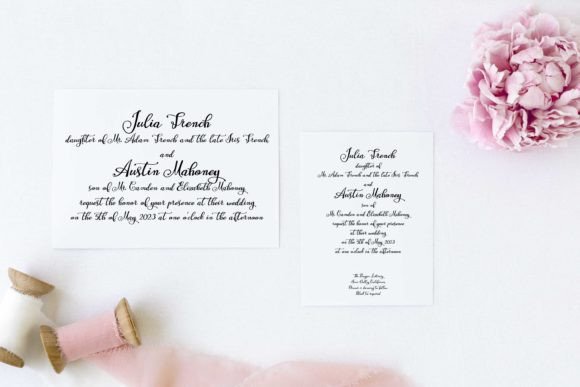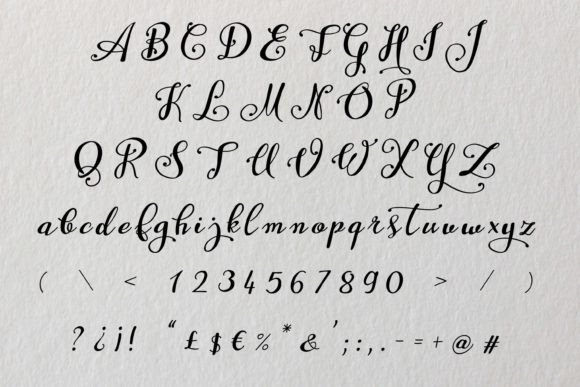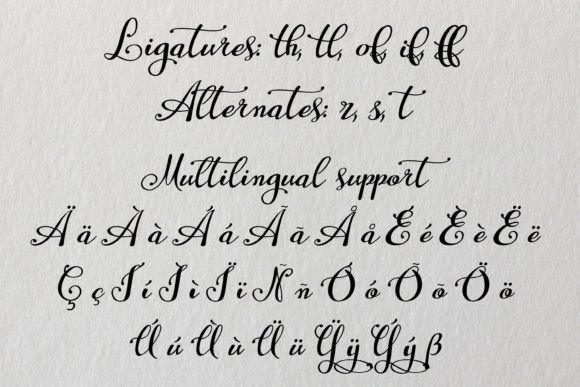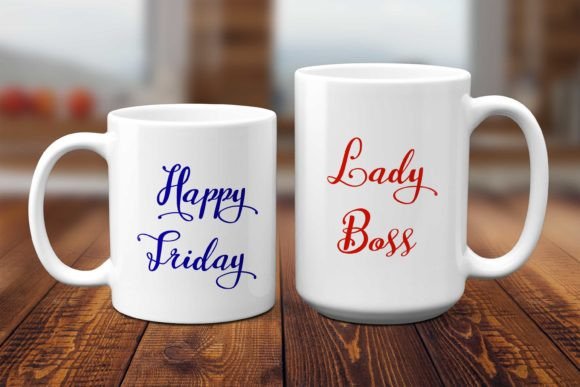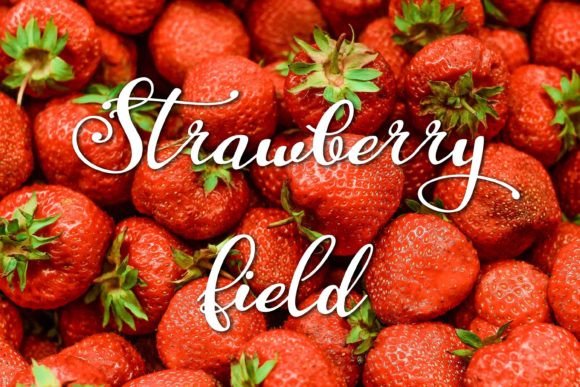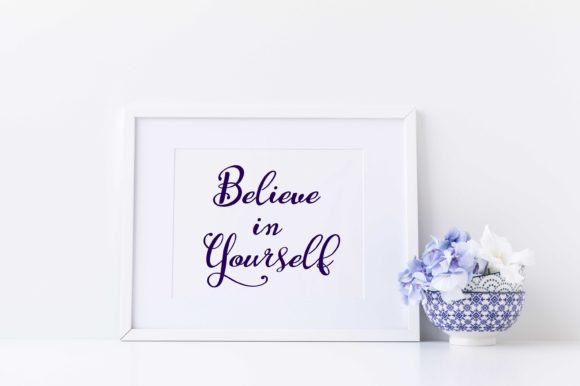
Introduction to Mastyr Font
That’s where Mastyr Font comes in – a modern, trendy, and feminine handwritten font that is sure to elevate your designs to the next level. Whether you’re a seasoned designer or just starting out, this versatile font is a valuable resource that can add a touch of warmth and romance to any project.
Mastyr Font
- High-quality design resource ideal for creative projects, offering a unique and elegant style.
- Perfect for use in logos, branding materials, and other visual identity projects, thanks to its sophisticated and modern design.
Honest Review: Mastyr Font
I recently stumbled upon the Mastyr Font while searching for a high-quality design resource for a creative project. I was impressed with its clean and elegant design.
- ✨ The font is highly versatile and can be used in a wide range of creative projects, from logos to typography-based art.
- ⚠️ The font only comes in a few weights, which may limit its use in certain design applications.
- ⚠️ The font may not be suitable for very small text sizes, as it can become difficult to read.
Overall, I was impressed with the Mastyr Font, and I would definitely recommend it to designers looking for a high-quality, free design resource. With a little creativity, the limitations of the font can be overcome, and it can be a valuable addition to any design toolkit.
Mastyr Font
The Mastyr Font is a versatile design resource that offers a high quality and unique touch to any creative project. With its transparent background, this font is perfect for designers who want to add a touch of elegance and sophistication to their work.
To get the most out of the Mastyr Font, try pairing it with other design elements, such as bold colors and geometric shapes. You can also experiment with different font sizes and styles to create a unique look.
Common Use Cases for Mastyr Font
The Mastyr Font is perfect for a variety of creative projects, including branding, advertising, and editorial design. It’s also great for personal projects, such as wedding invitations and party decorations.